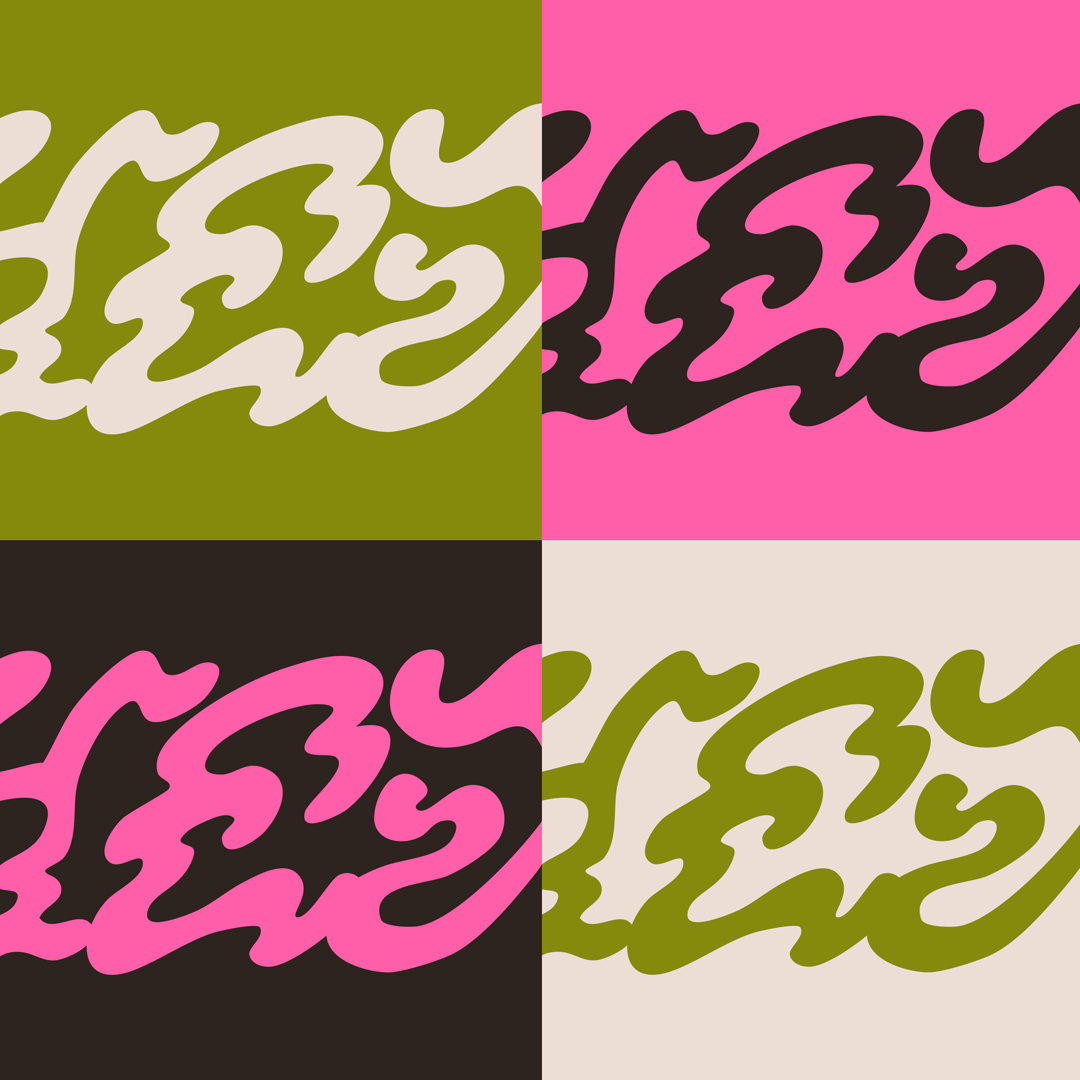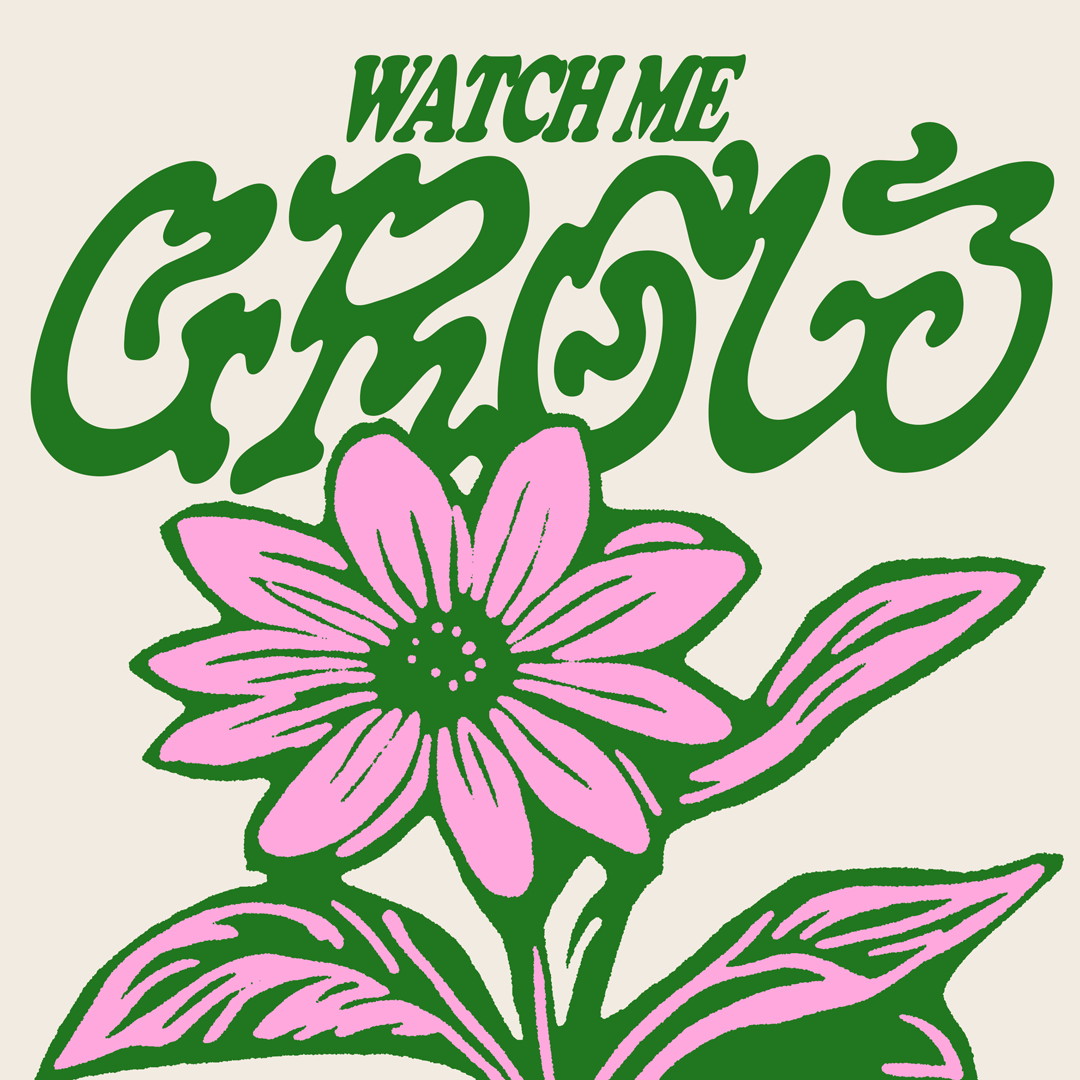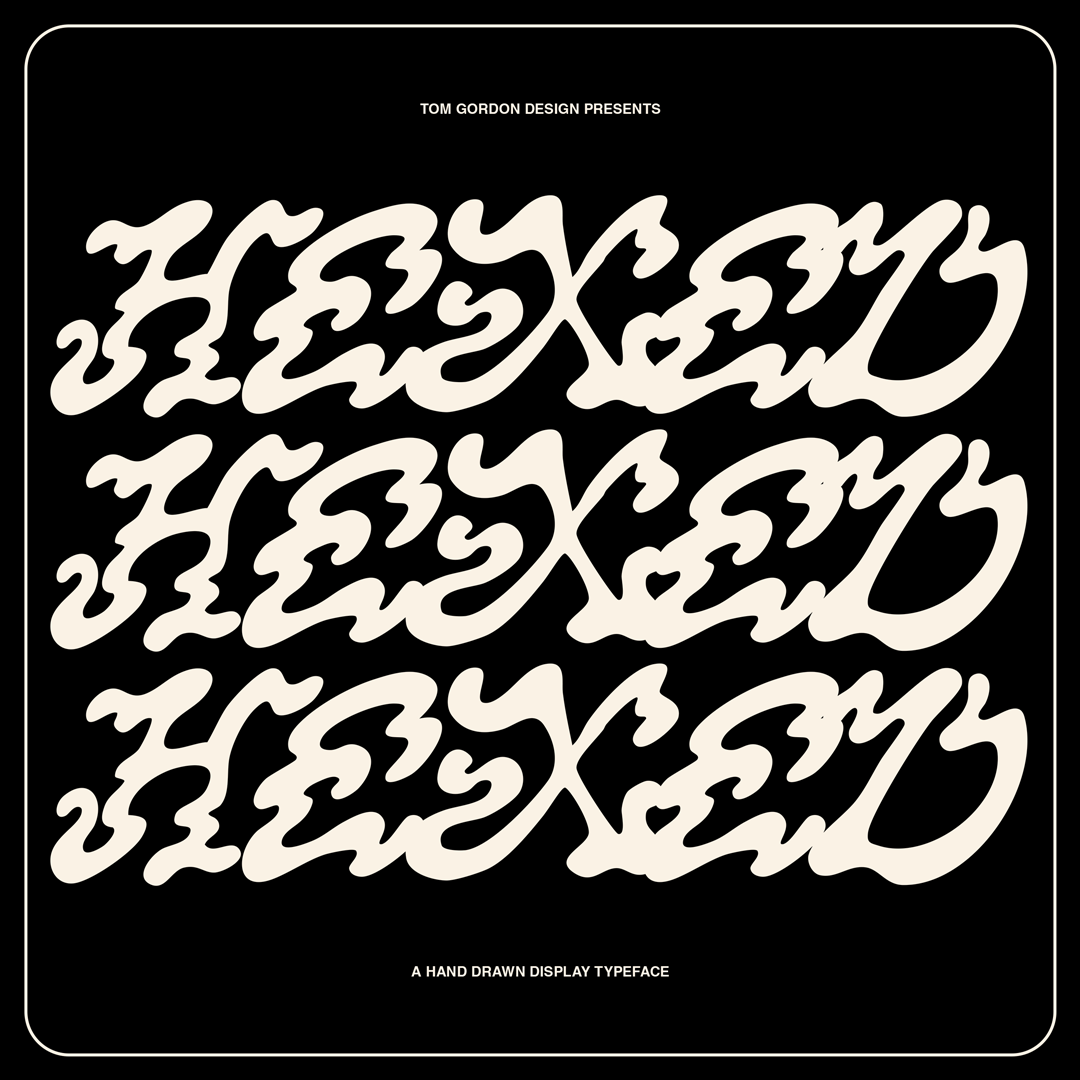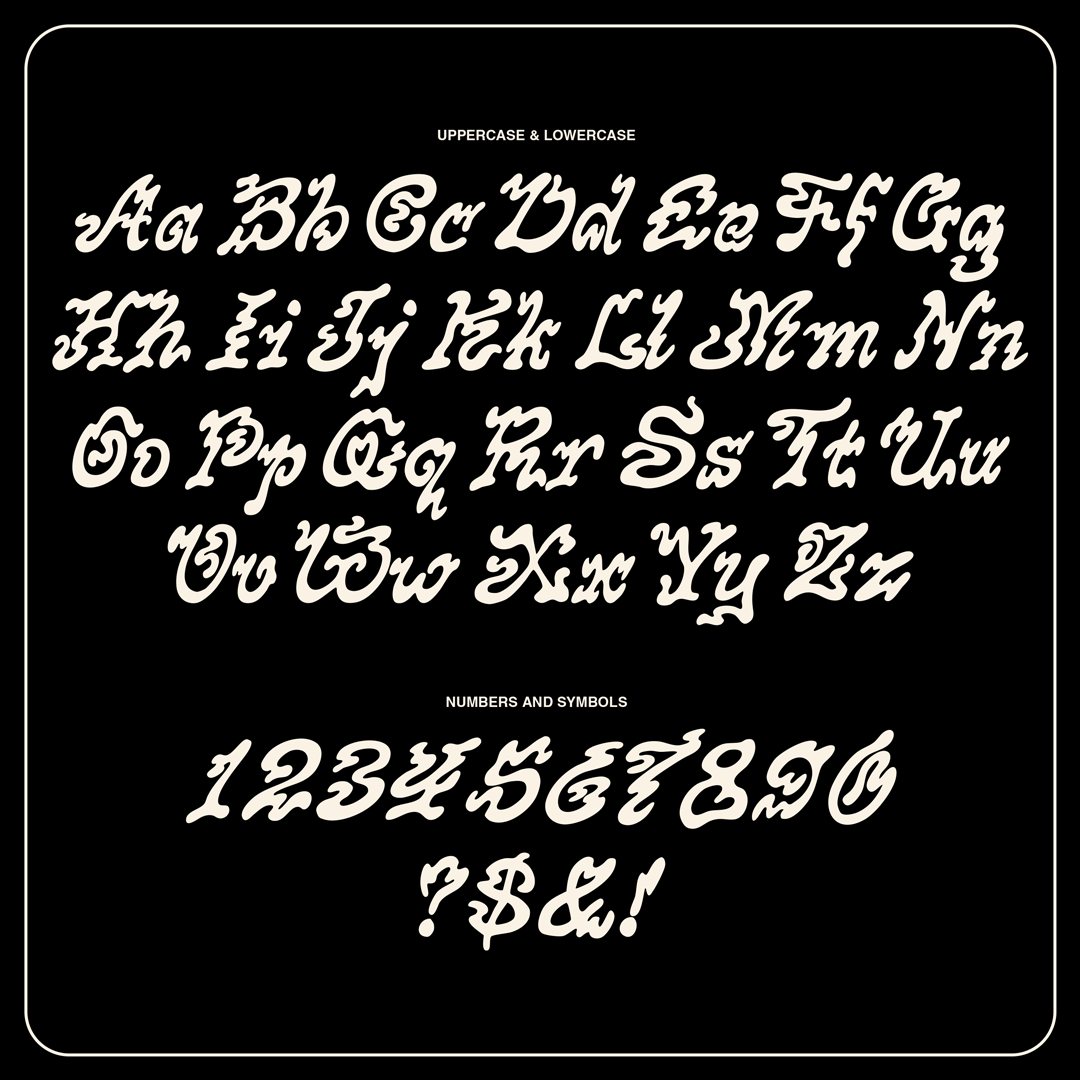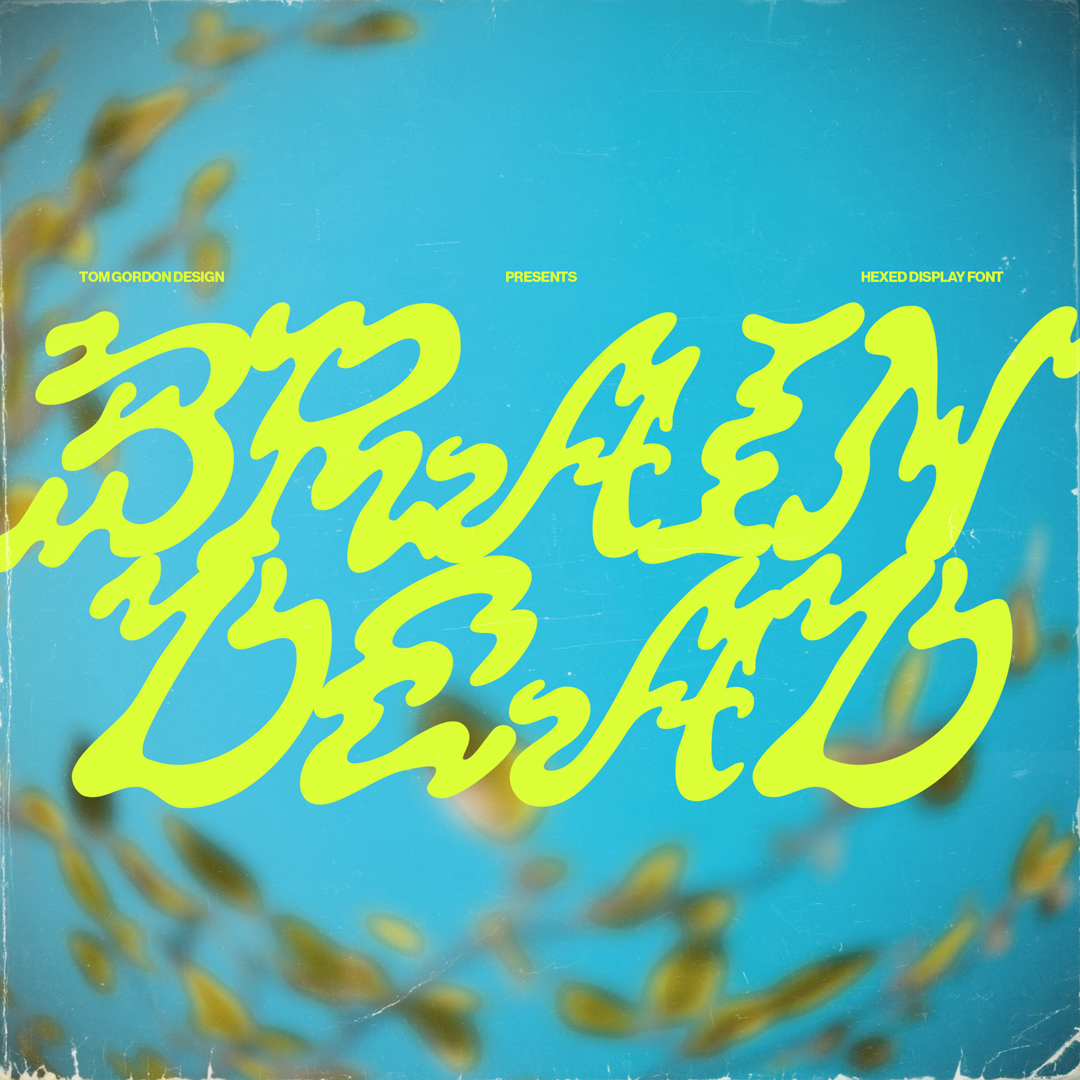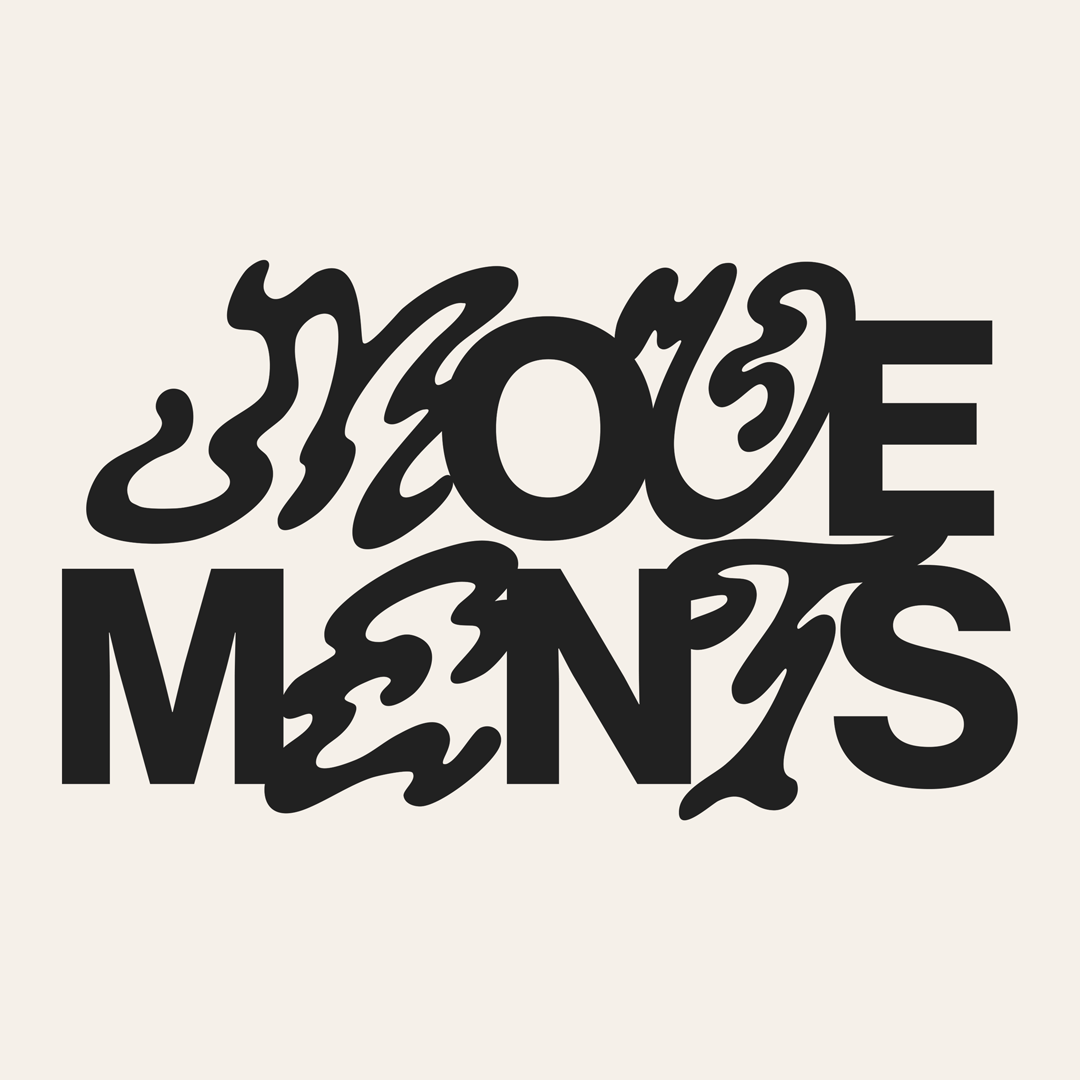
Hexed is my take on a 90s style Skate/Surf typeface. This fun and vibrant display font is perfect for bringing energy and style to your designs. It works seamlessly with other fonts to add character to your typography or on it's own. It looks equally at home combined with fun organic illustrations or as part of a modern minimalist design.
Full Uppercase & Lowercase Alphabet
Numbers and essential symbols